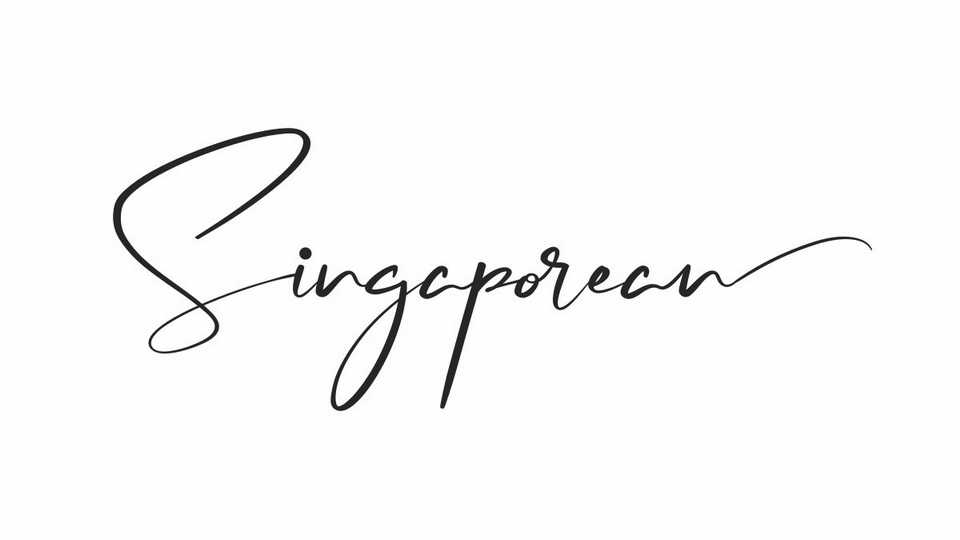
Download Singaporean font, an original handwriting calligraphy typeface with a modern, elegant, luxury, sophisticated and classic brush style.
Designer: NihStudio